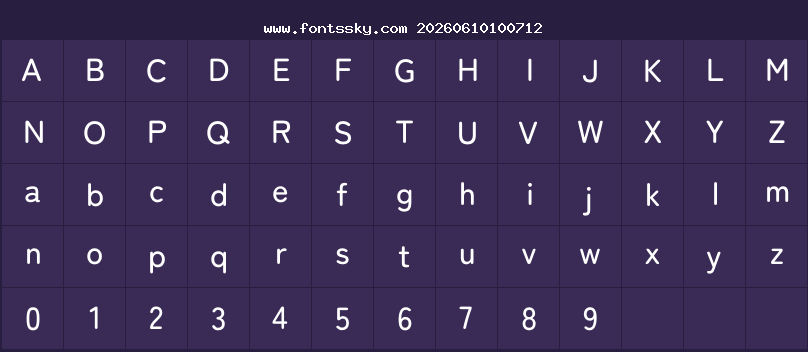
• Font Name: 寒蝉半圆体
• Full Font Name: ChillRoundM
• Designer: Yoshimichi Ohira & Warren
• Manufacturer: ChillType
• Description: 基于日本开源字型Zen Maru Gothic進行調整的圆体字型!
About 寒蝉半圆体.otf
寒蝉半圆体.otf is a modern, elegant sans-serif font designed for ultimate readability and visual harmony. Perfect for branding, headlines, web design, and print materials.